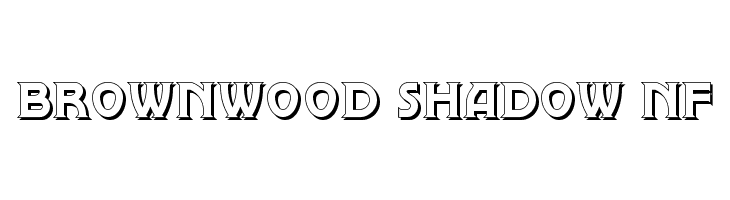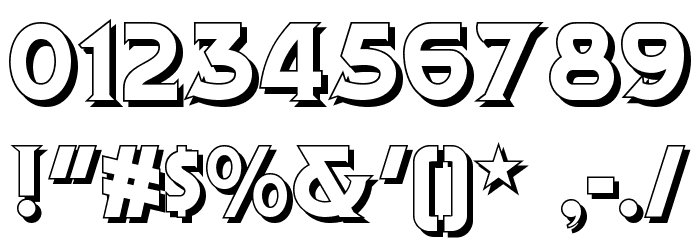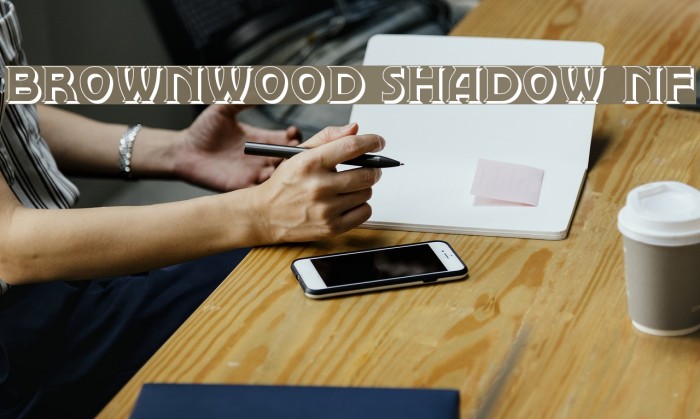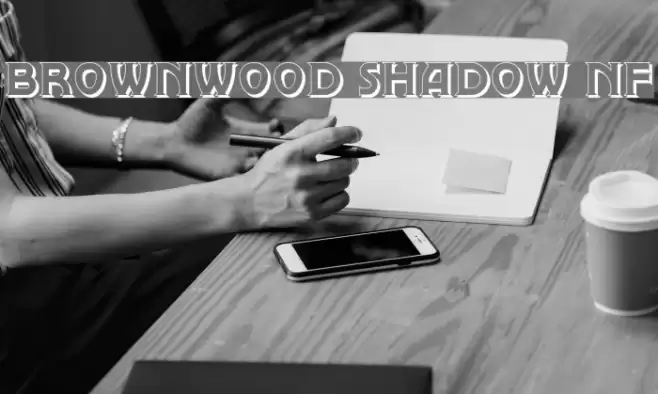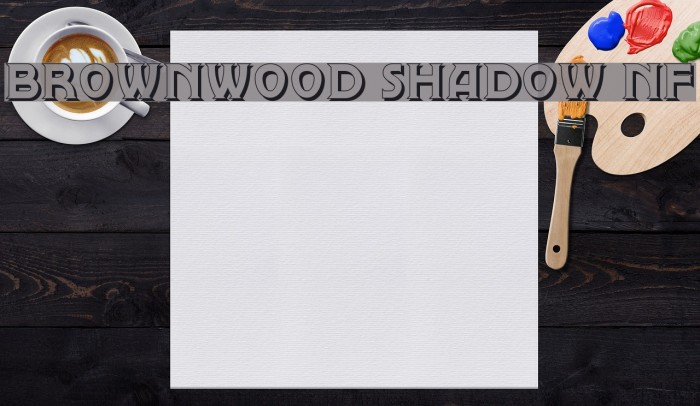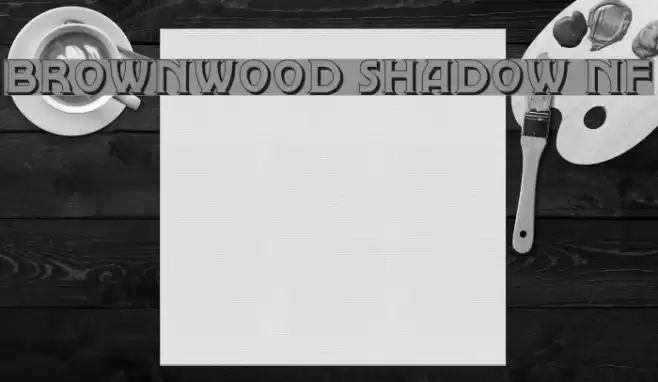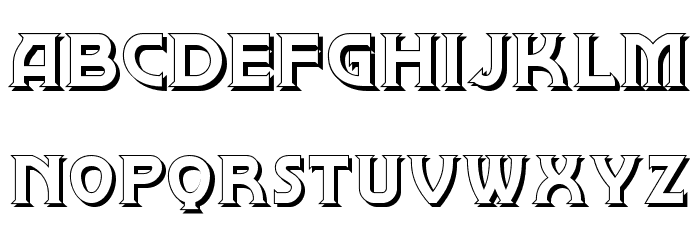
Brownwood Shadow NF Font
Brownwood Shadow NF Description
This font features a bold, decorative style with a distinct shadow effect that adds depth and dimension to each character. The uppercase letters are robust and commanding, with sharp angles and clean lines that create a strong visual impact. The shadowing is consistent across all characters, enhancing the three-dimensional appearance. The numerals and special characters maintain the same boldness and shadow detail, ensuring uniformity throughout the typeface. This font is ideal for projects that require a striking and attention-grabbing display, such as posters, headlines, or branding materials.
| Proposed Projects | Ideal for posters, headlines, branding, and any project needing a bold, eye-catching typeface. |